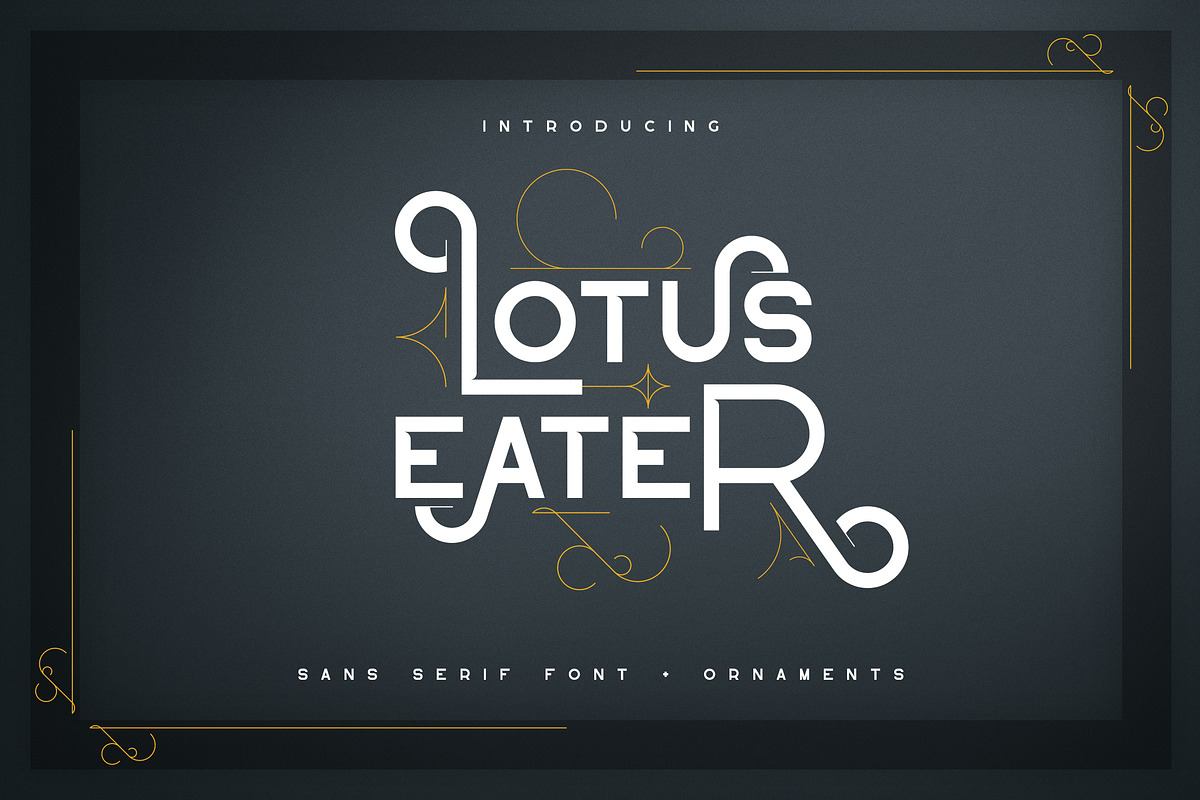
The Lotus Eater - Sans Serif Font Free Download is a sleek and minimal typeface that combines clean, modern lines with a touch of elegance. Perfect for contemporary branding, editorial layouts, websites, product packaging, and social media graphics, this font brings simplicity and style to your designs.
With its sharp edges, geometric forms, and spacious letter spacing, Lotus Eater offers a bold yet approachable look. It includes uppercase and lowercase characters, numbers, punctuation, and multilingual support, providing the versatility you need for a variety of creative projects.